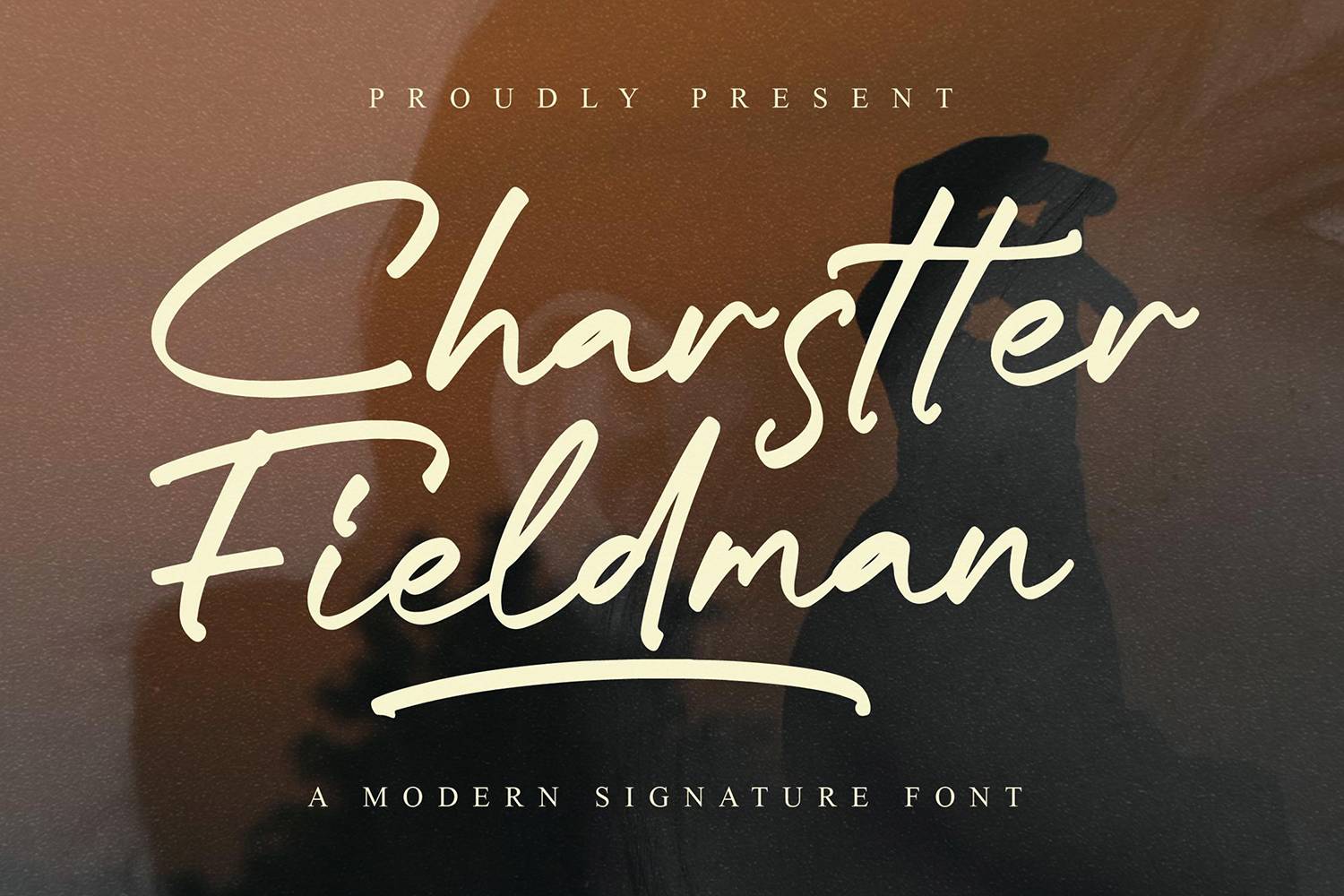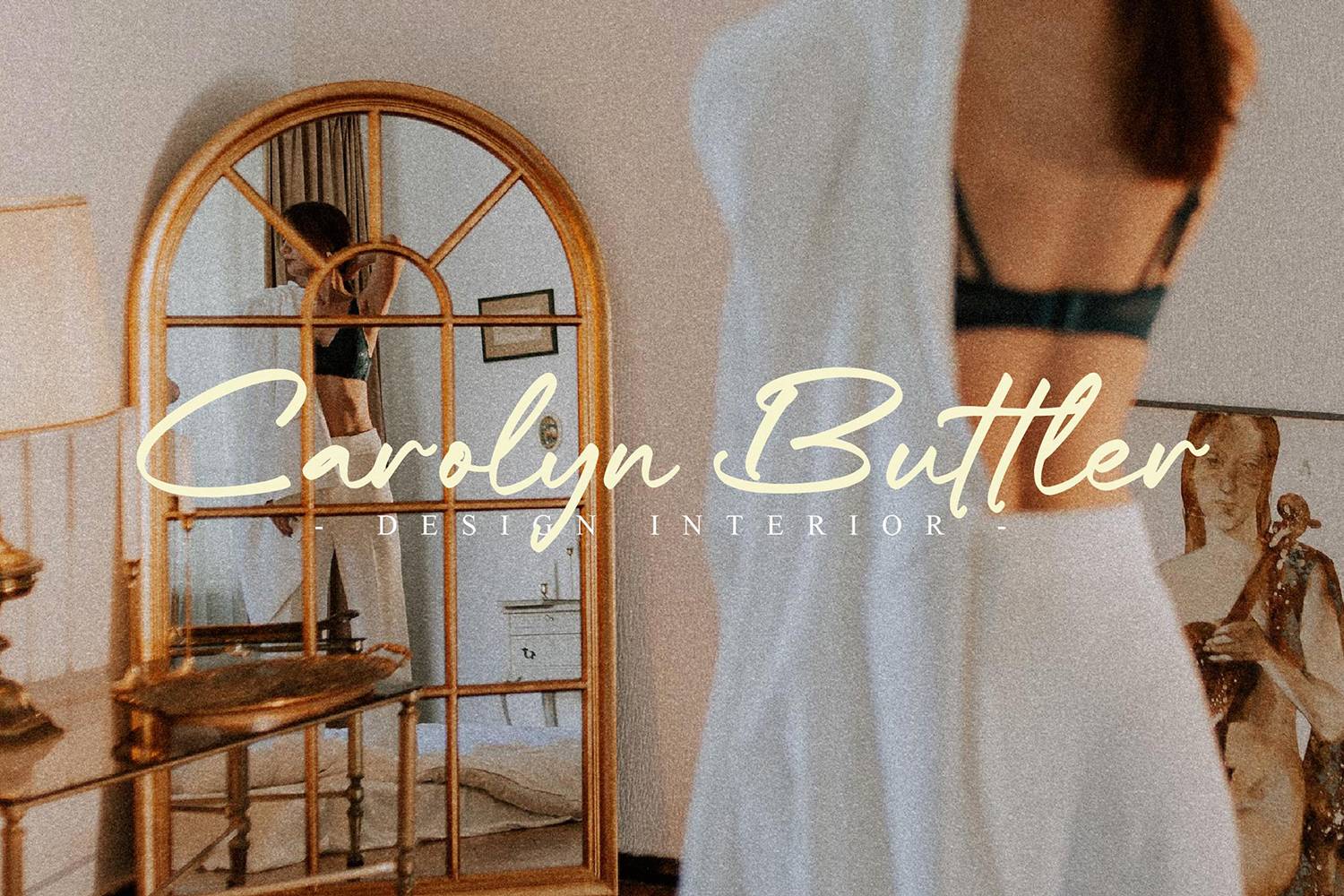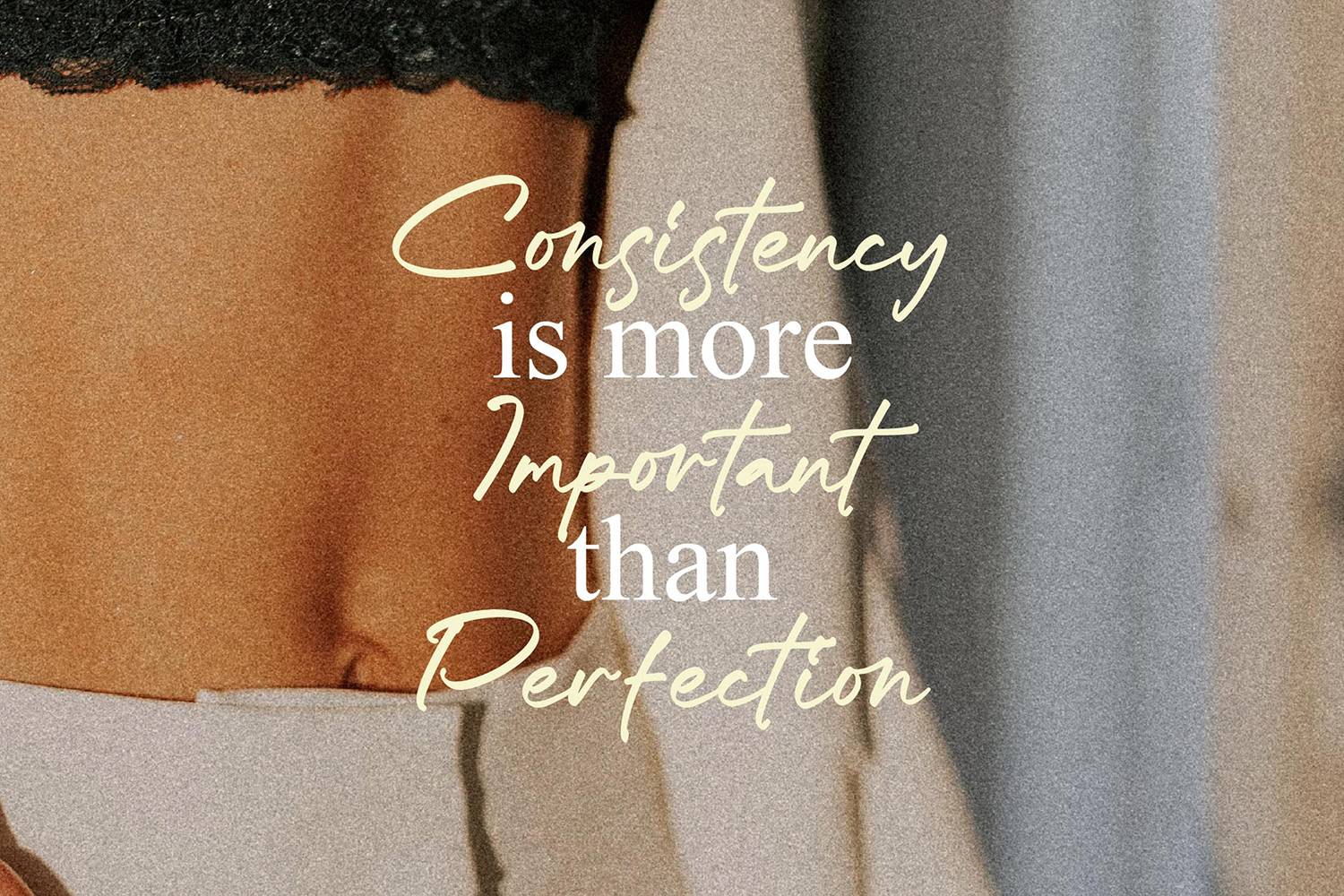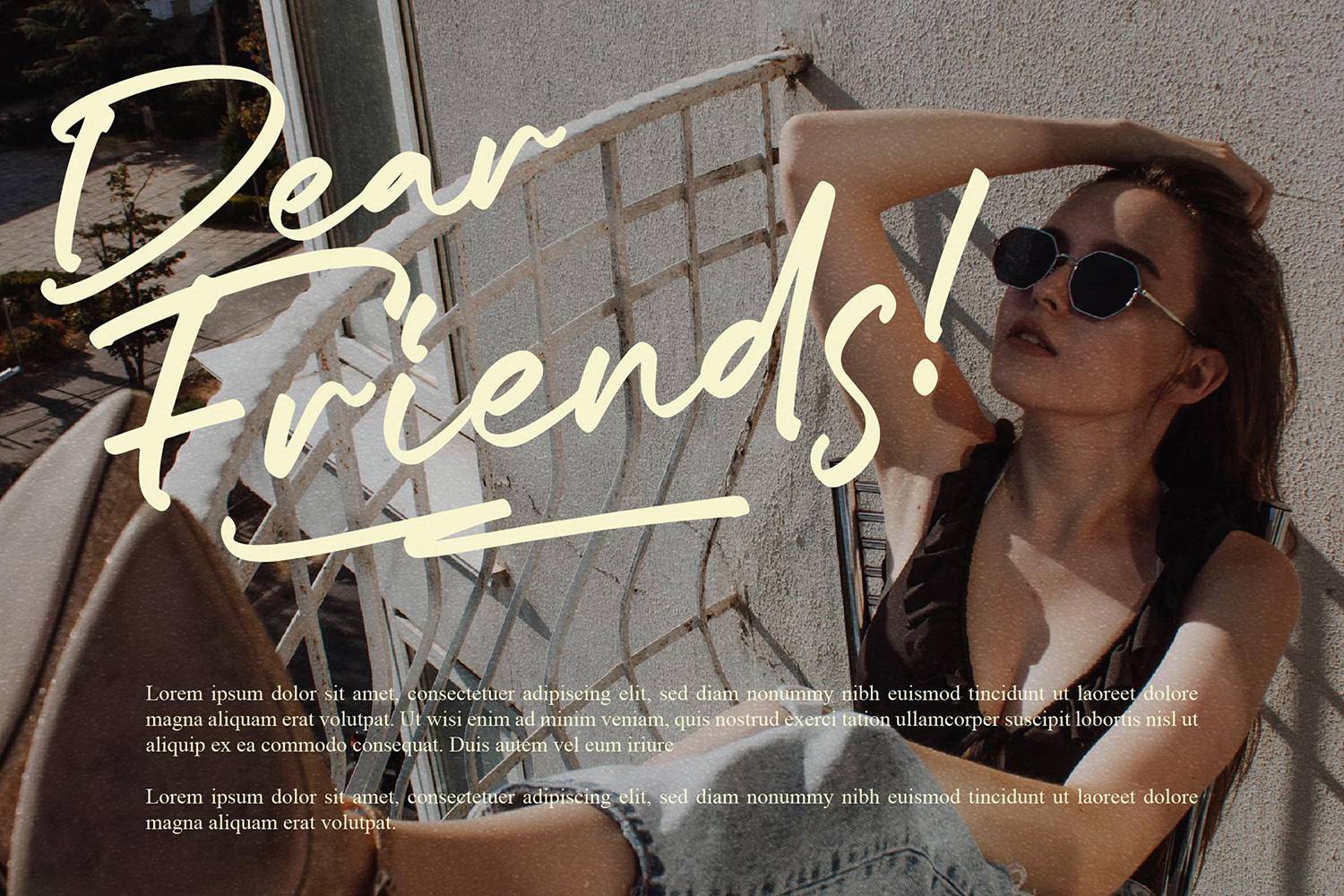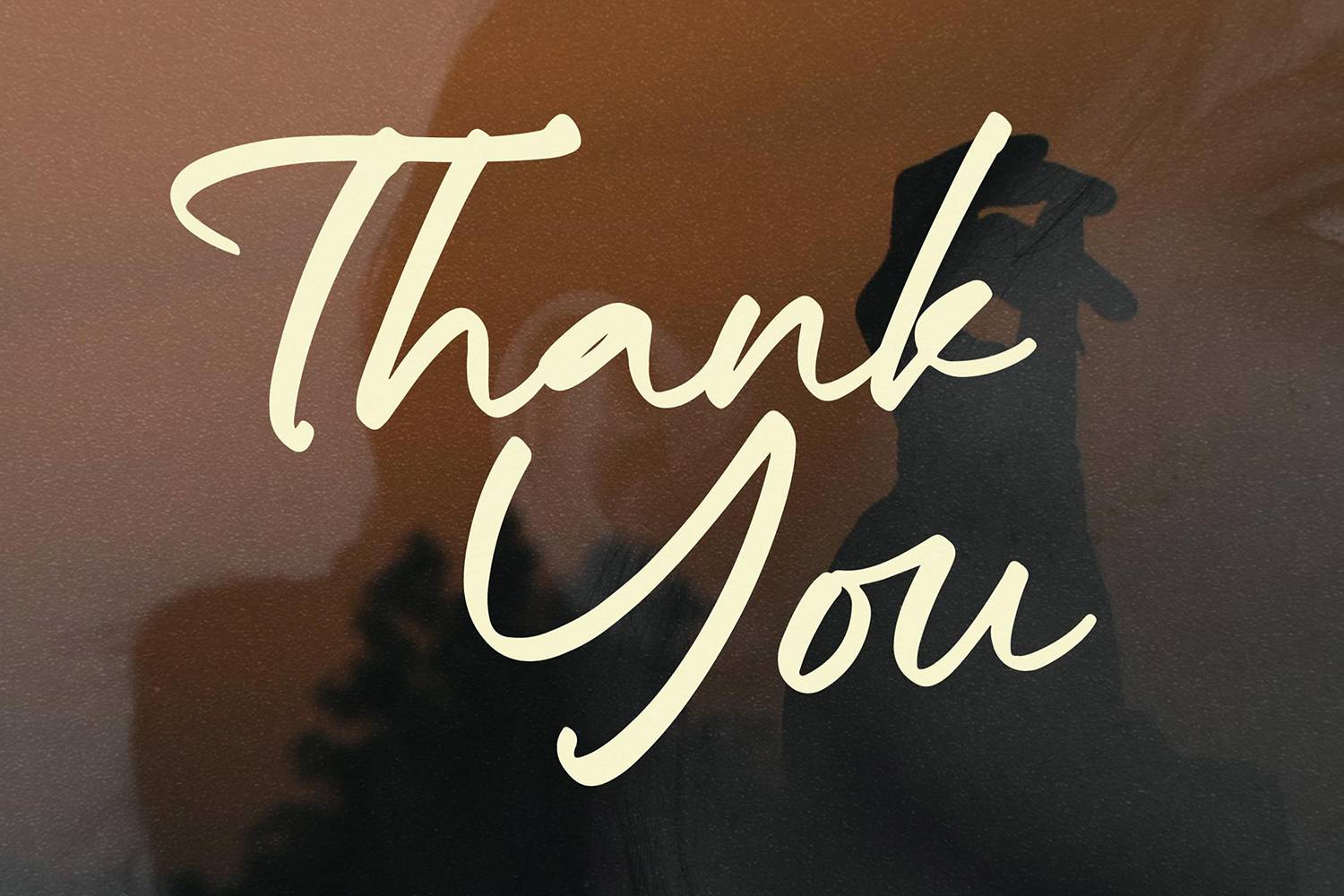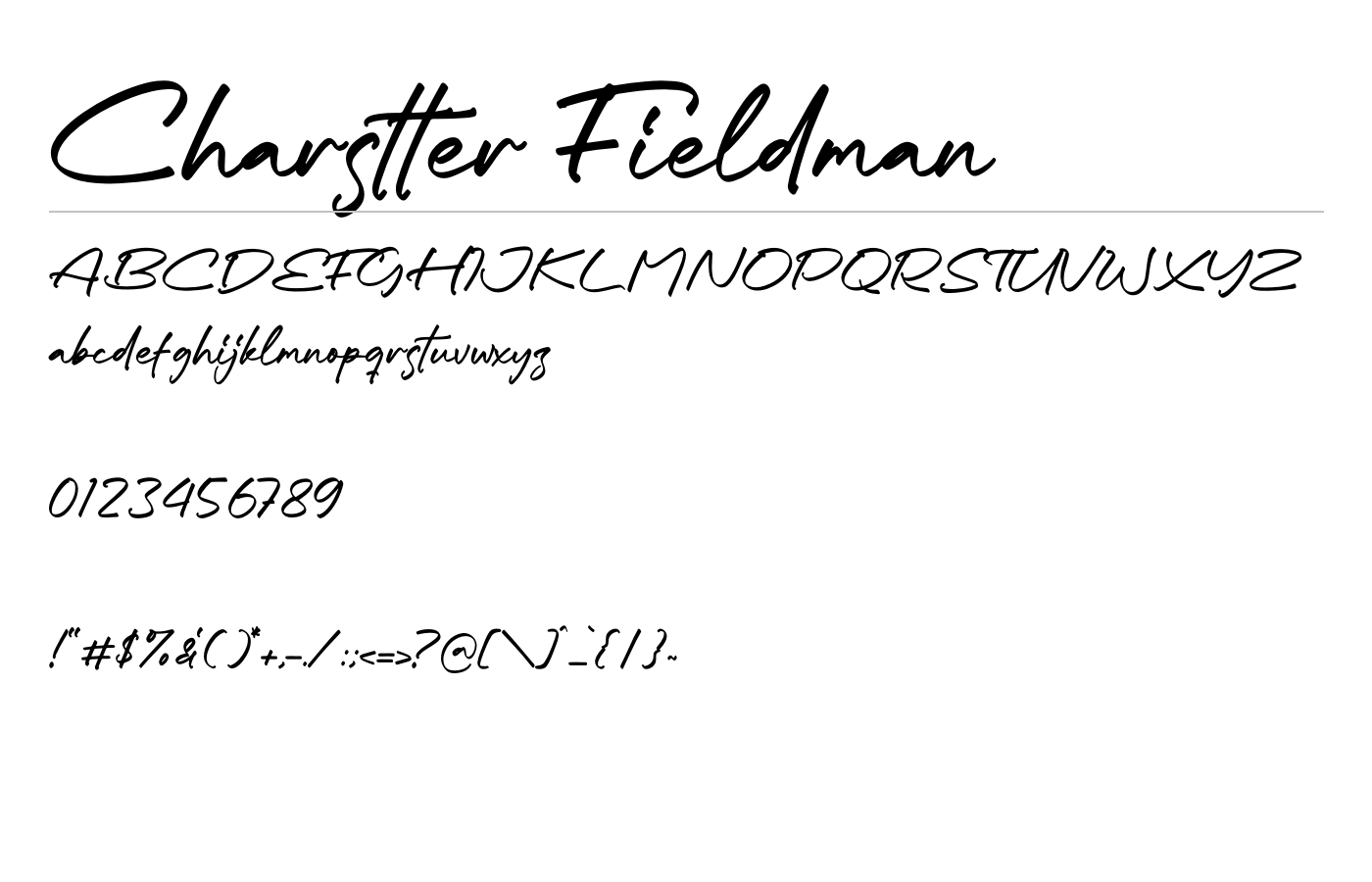
Charstter Fieldman is a lively and elegant script font that mimics natural handwriting with smooth, flowing strokes and a slight slant. Its thin, delicate lines and informal style make it perfect for adding a personal, artistic touch to invitations, branding, and creative projects where a friendly yet sophisticated feel is desired. This font works well in headlines, logos, or any design that benefits from a refined, handcrafted look.
Charstter Fieldman Font
About Charstter Fieldman Font